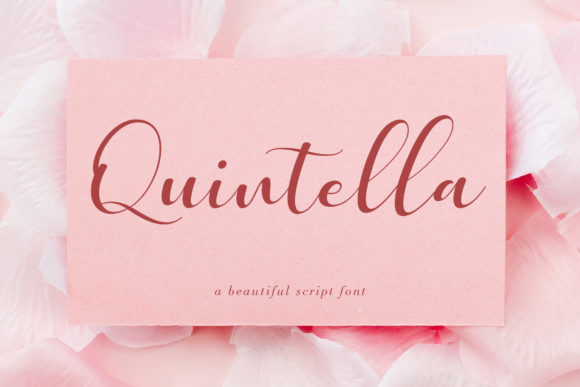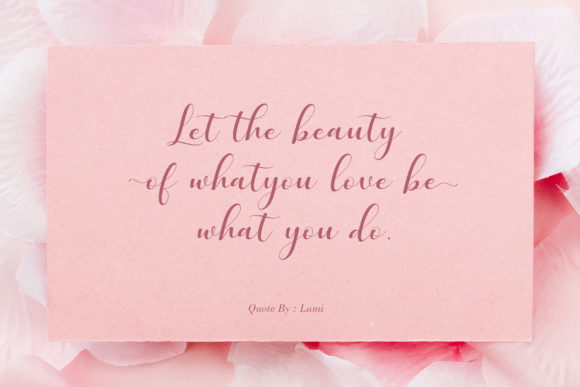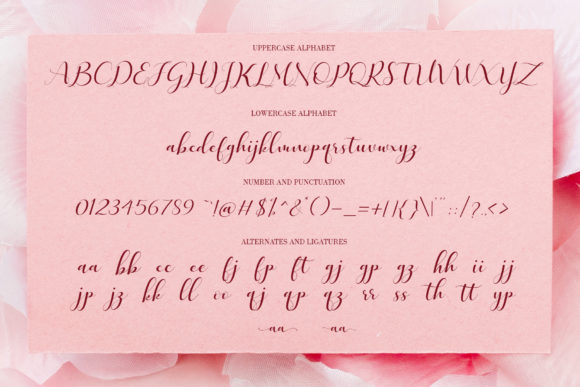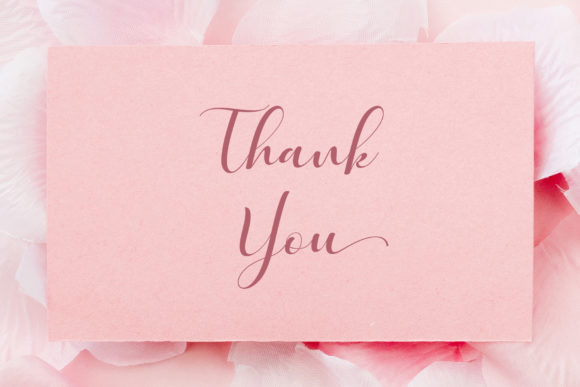
Quintella Font
About Quintella Font
Quintella is a light and lovely handwritten font with a lot of incredible charm! It will turn any creative project into a stunner.